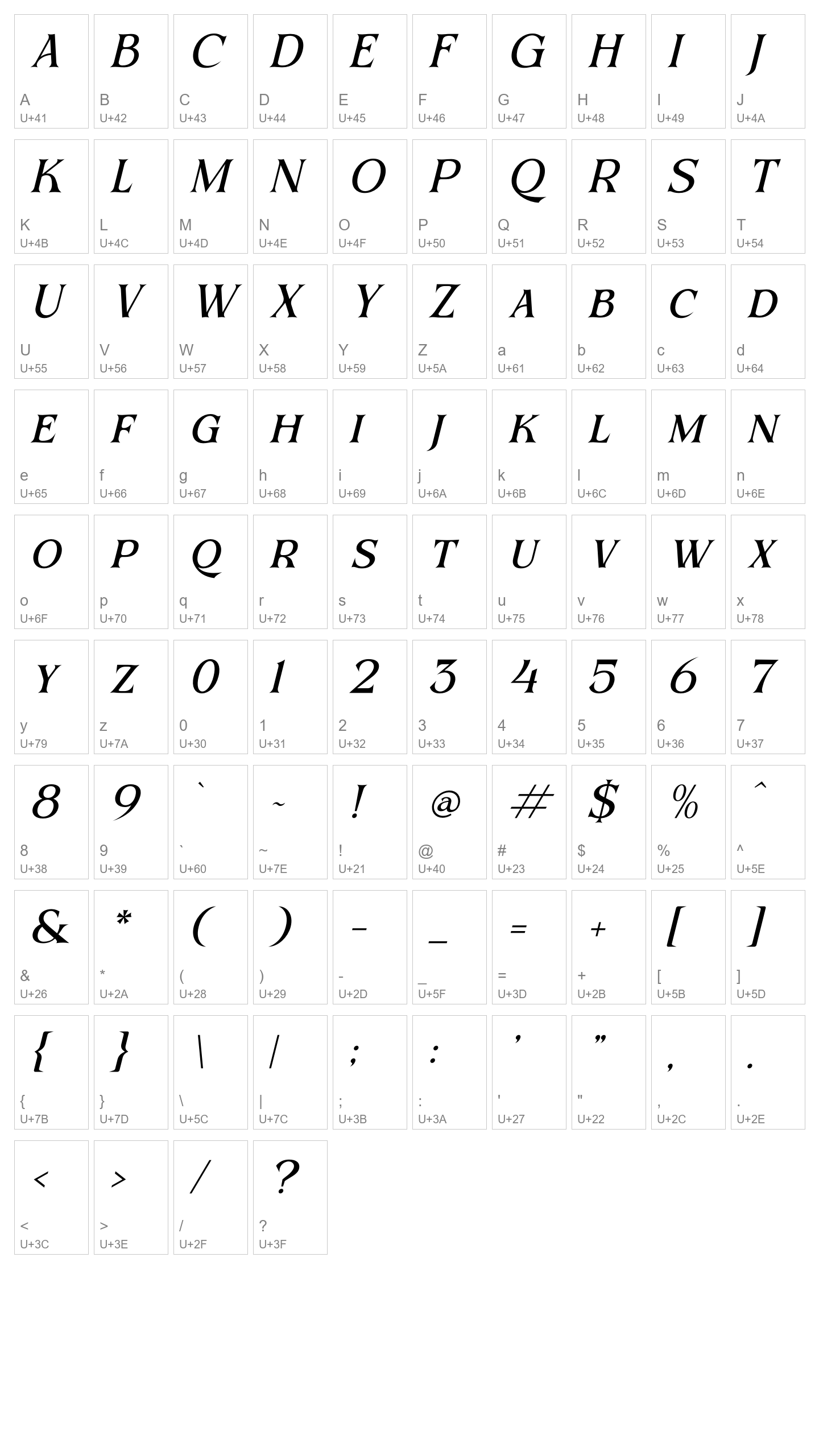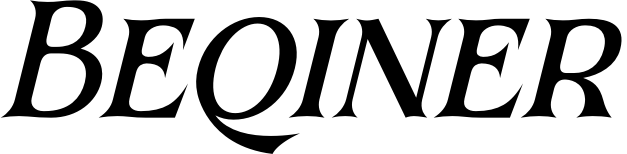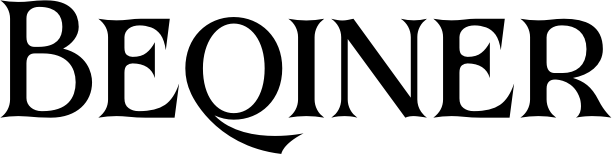
Beqiner
Proudly present Beqiner | Elegant Serif Typeface, created by Denustudios, A serif modern and classic typeface that has own unique style & modern look. This typeface is perfect for an elegant & luxury logo, book or movie title design, fashion brand, magazine, clothes, lettering, quotes, and so much more.
Features :
Uppercase and Lowercase
Numerals
Punctuations (OpenType Standard)
Accents (Multilingual Characters)
Ligatures and Alternative Style Stylistic Set